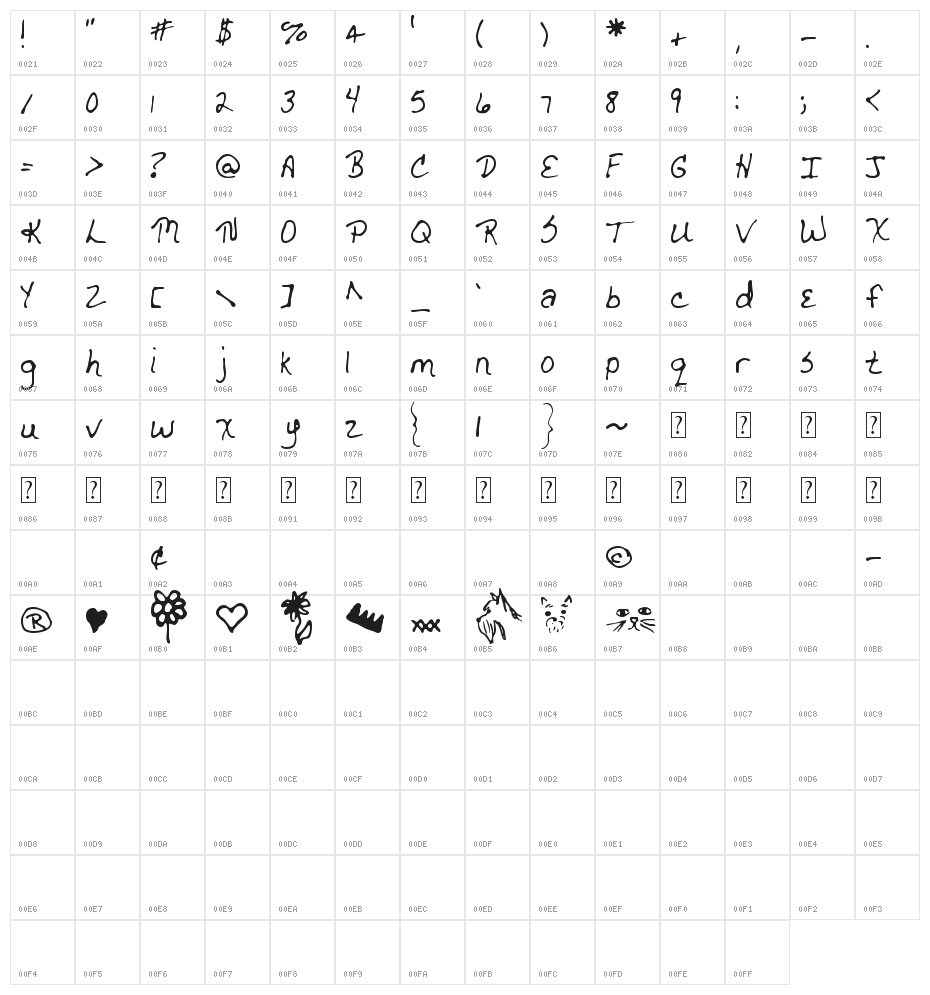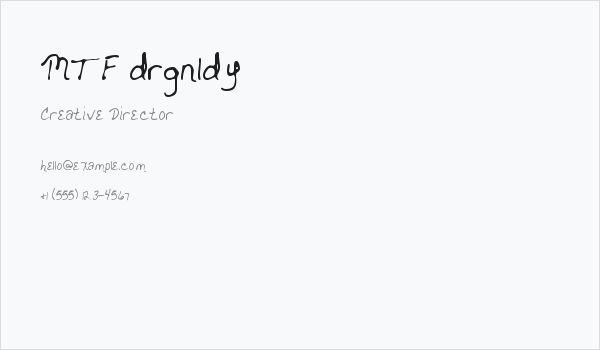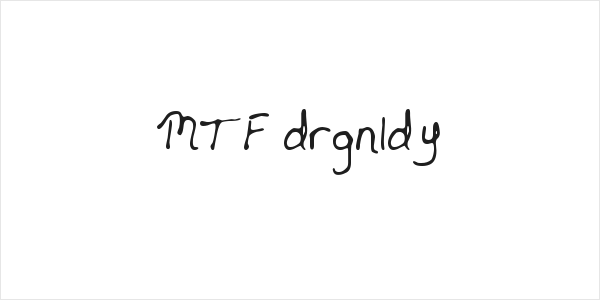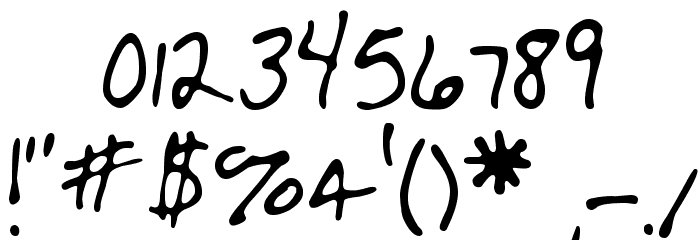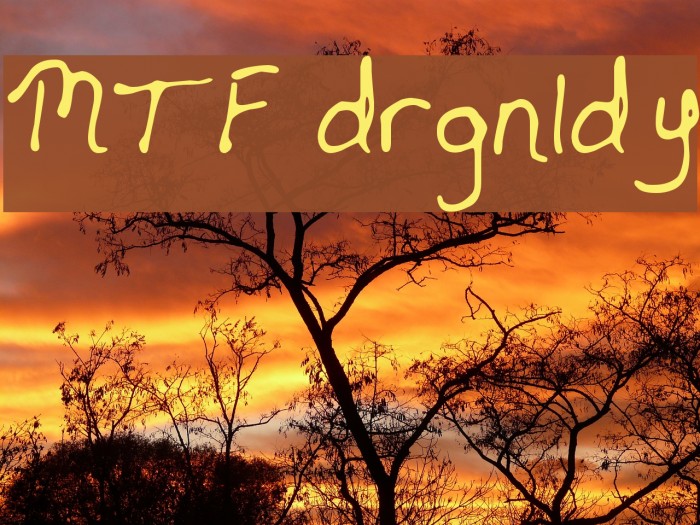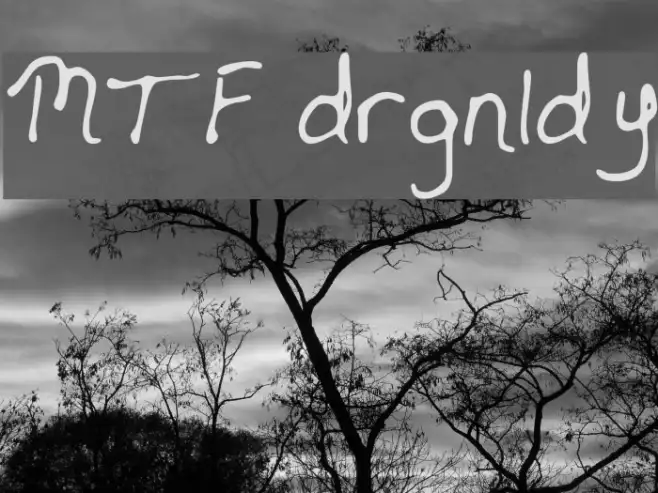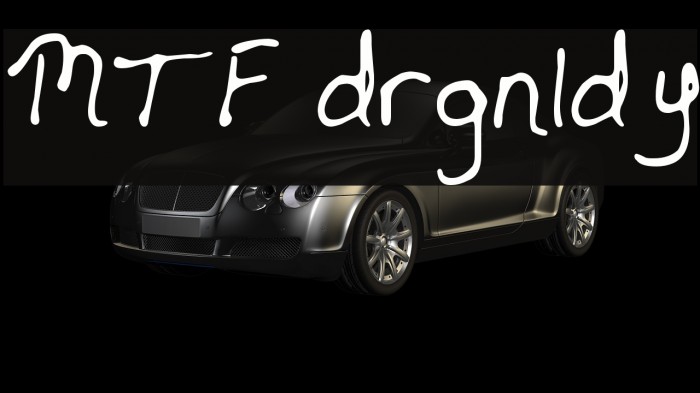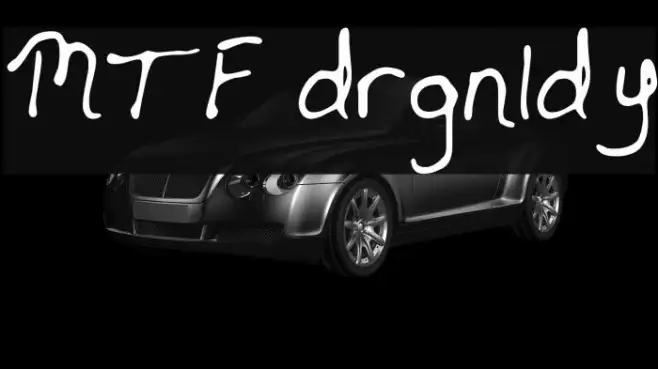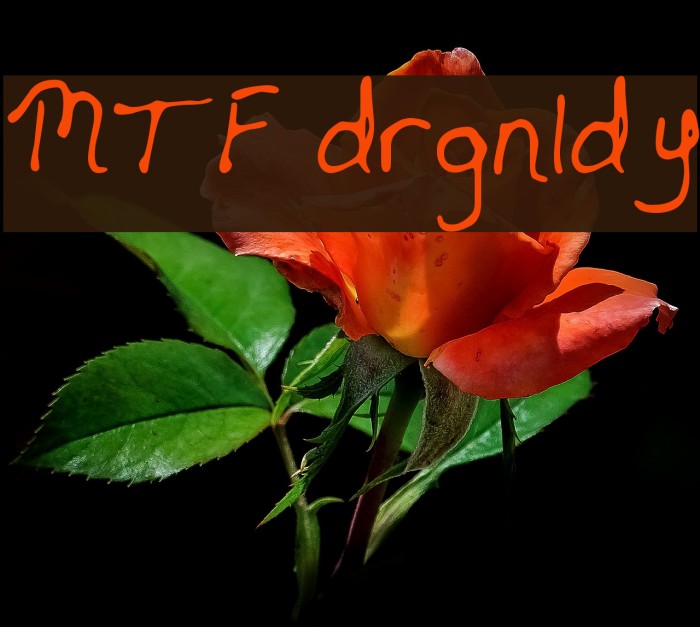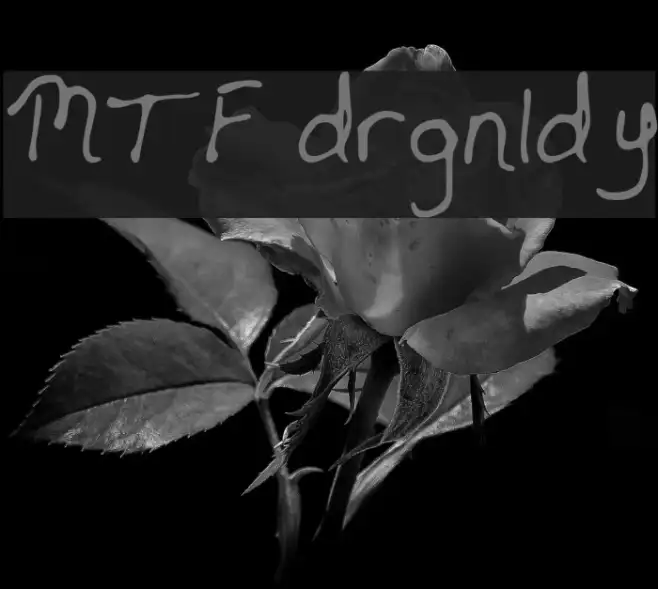
MTF drgnldy Font
MTF drgnldy Description
This font features a playful and whimsical handwritten style, characterized by its fluid and organic letterforms. The strokes are uneven and slightly irregular, giving it a casual and informal appearance. The uppercase and lowercase letters maintain a consistent style, with a slight slant that adds to its dynamic feel. The numbers and special characters are crafted with the same playful touch, ensuring a cohesive look across all elements. This font exudes a sense of creativity and spontaneity, making it ideal for projects that require a personal and approachable touch.
| Use Case | Logos, Invitations, Creative projects |
| Proposed Projects | Ideal for greeting cards, children's books, creative branding, and casual invitations. |